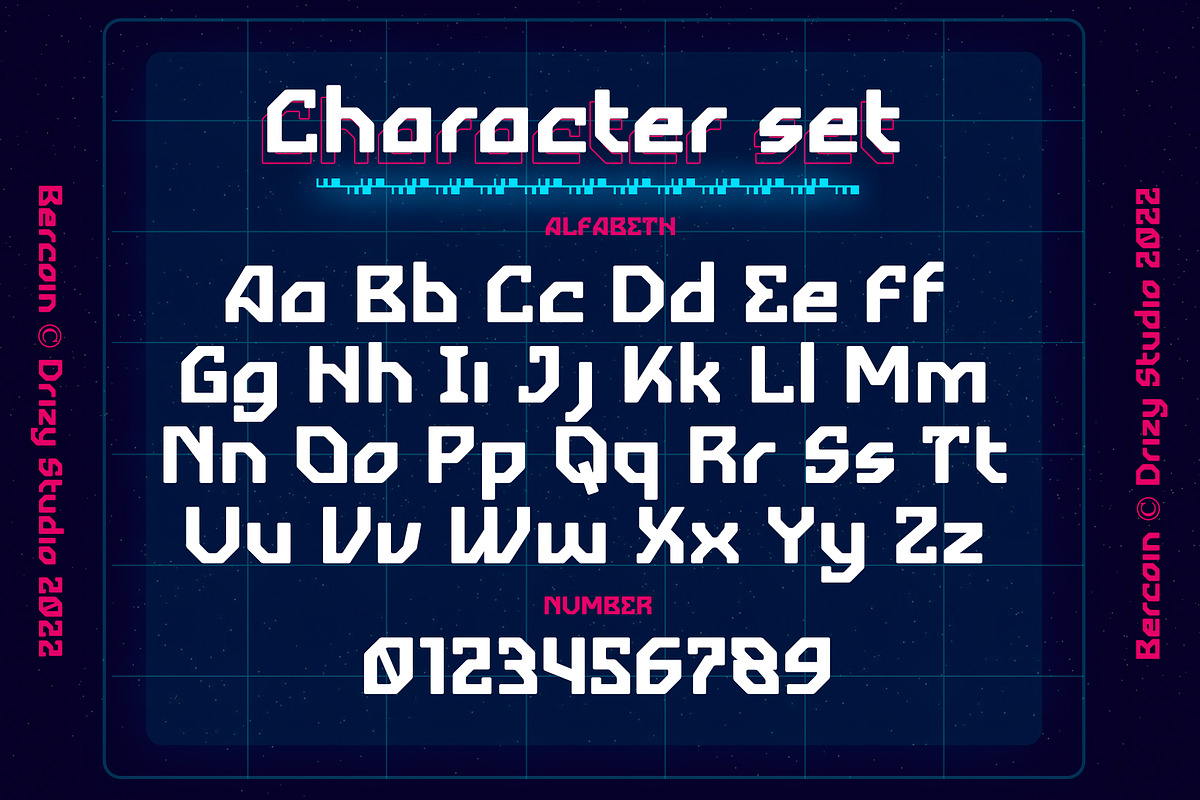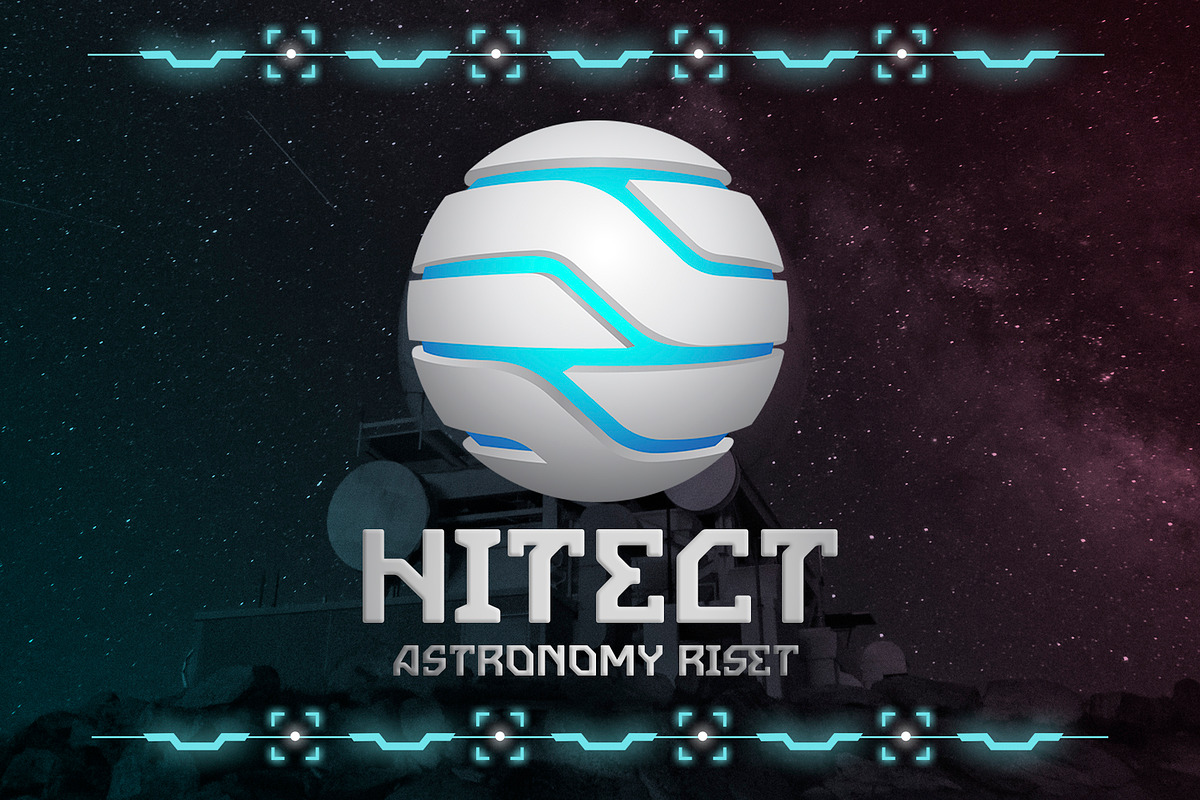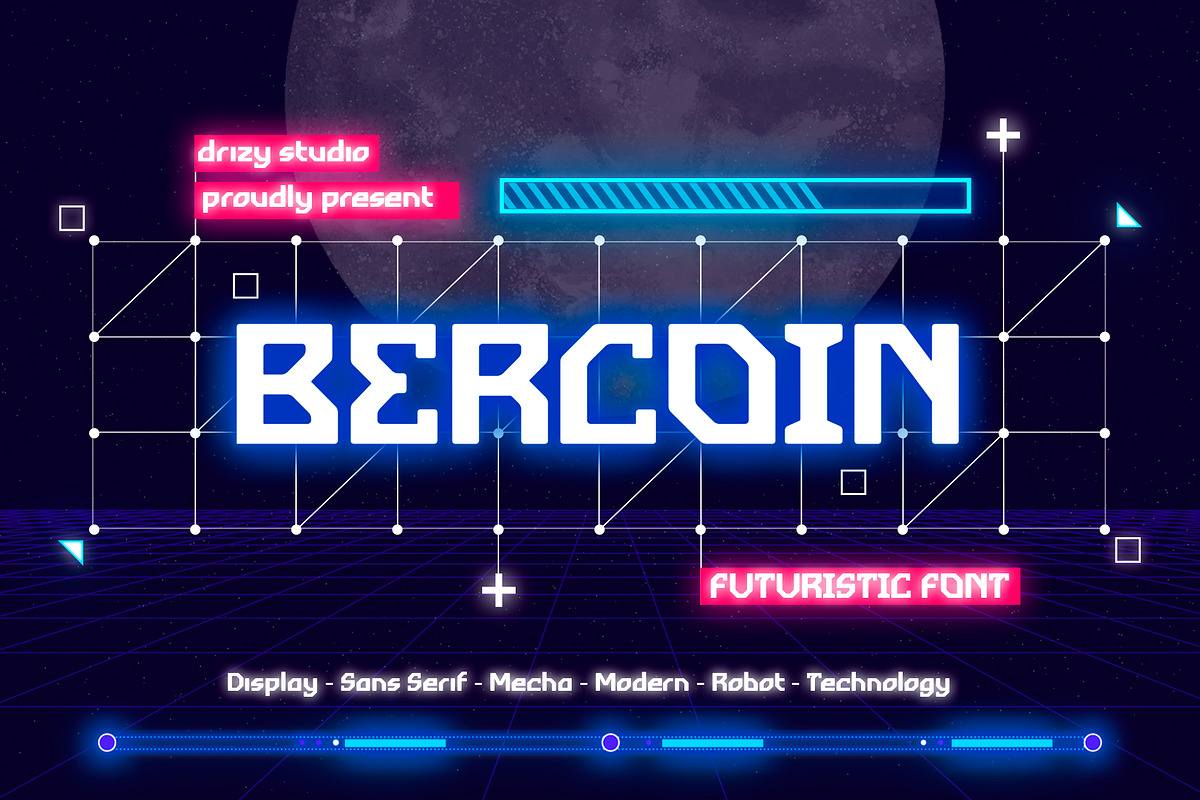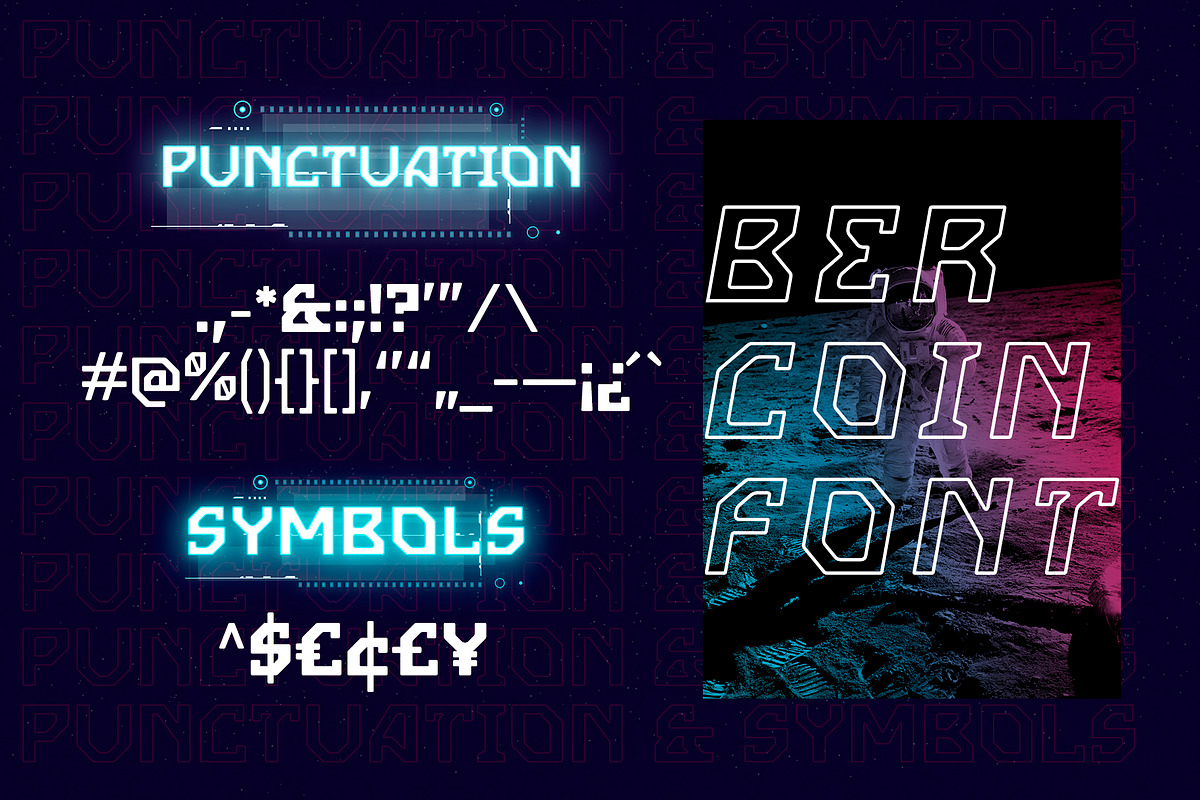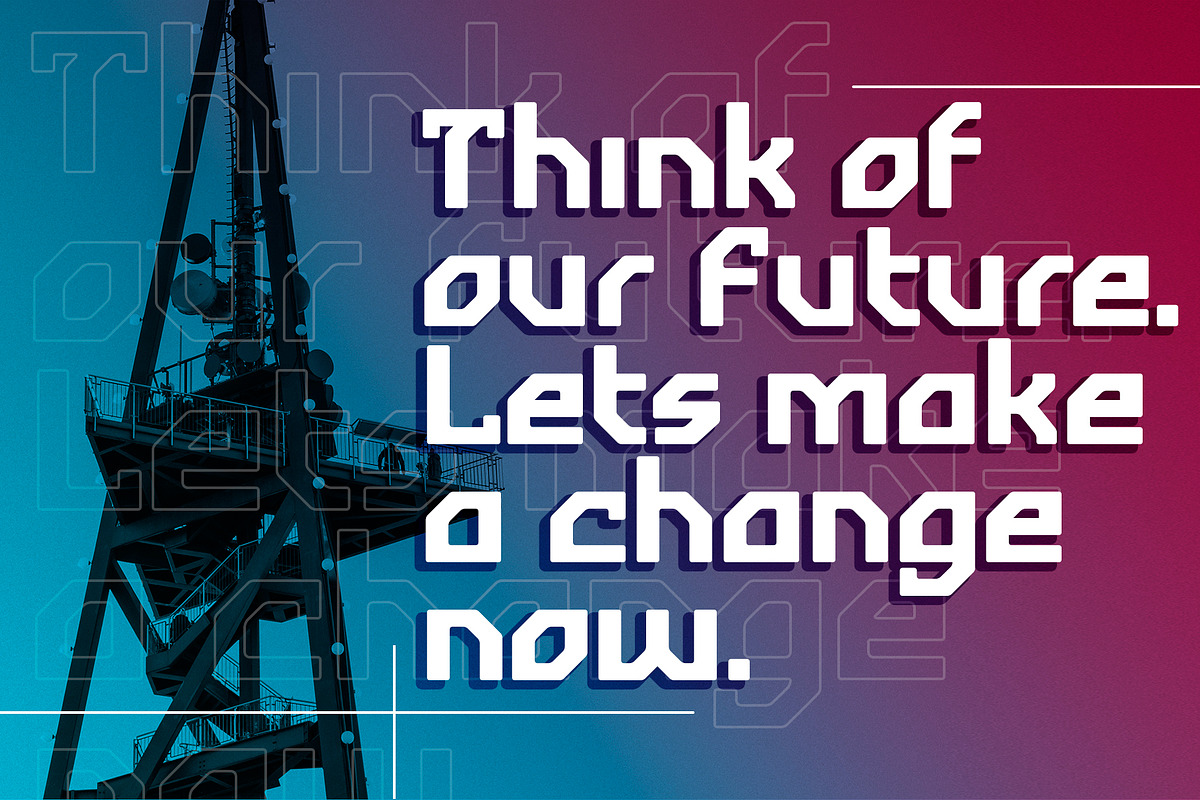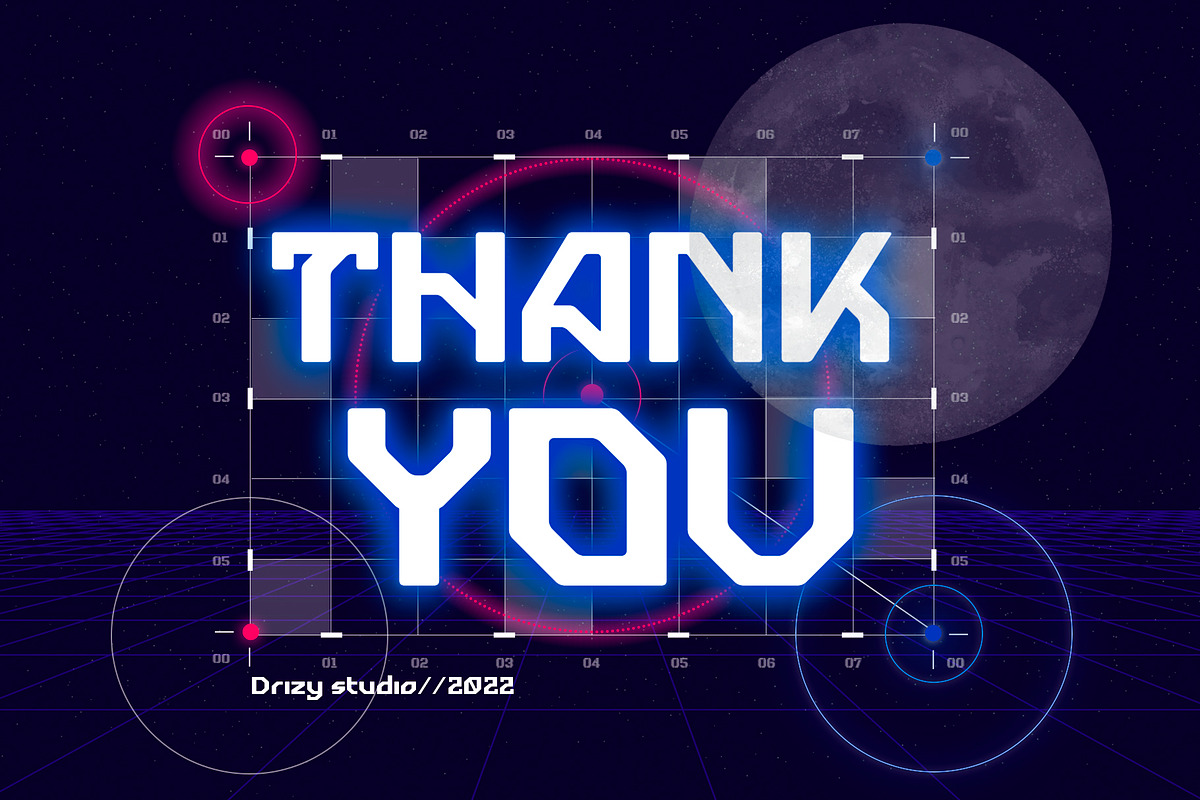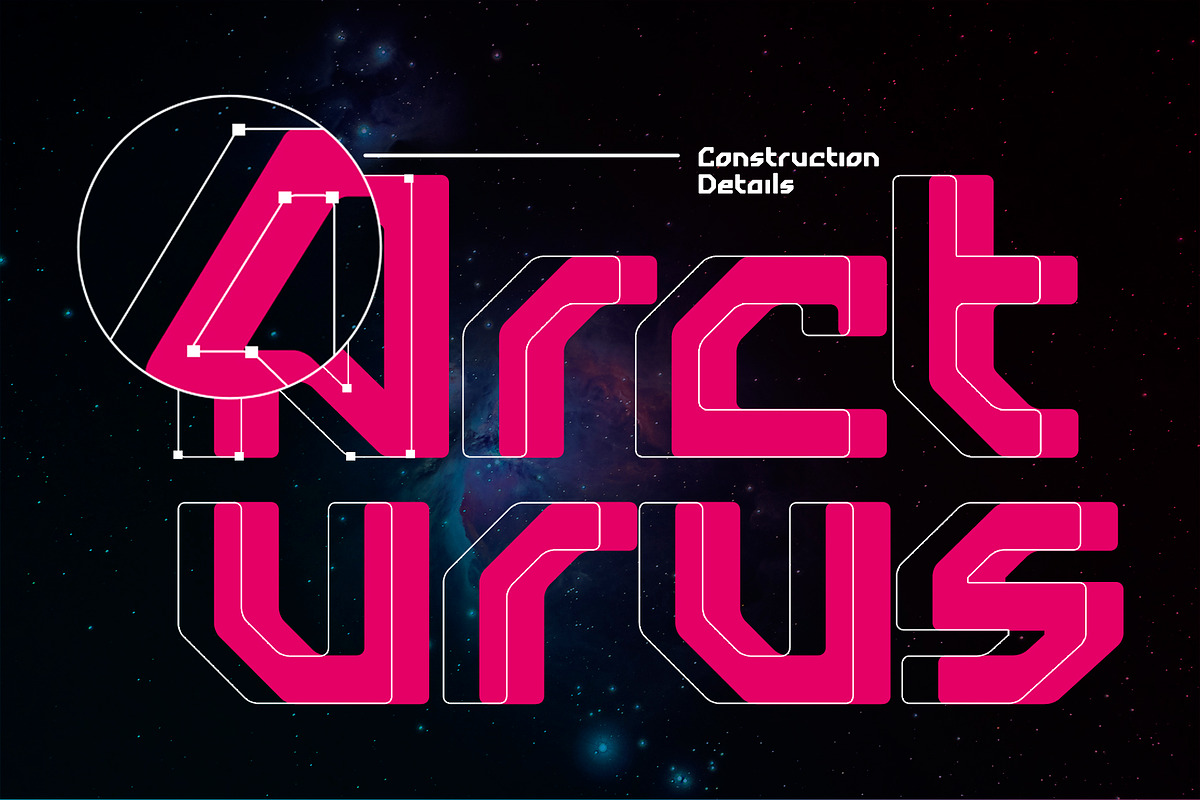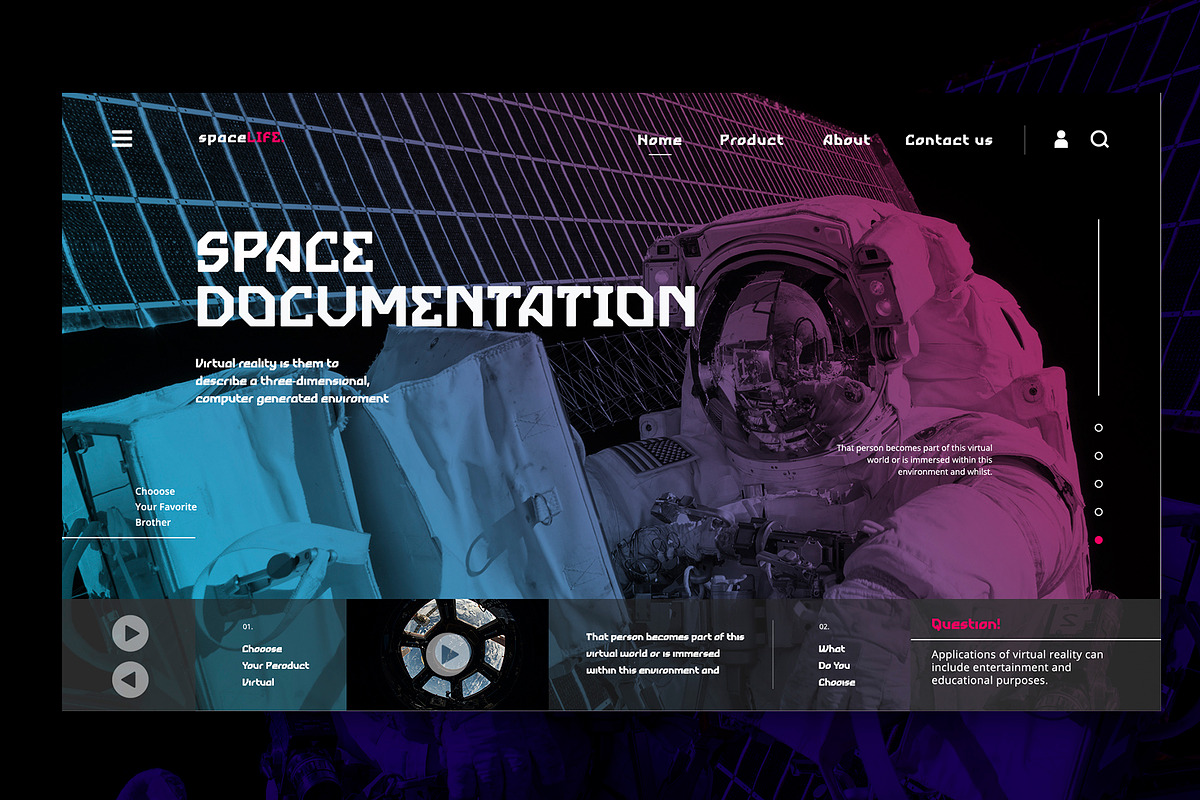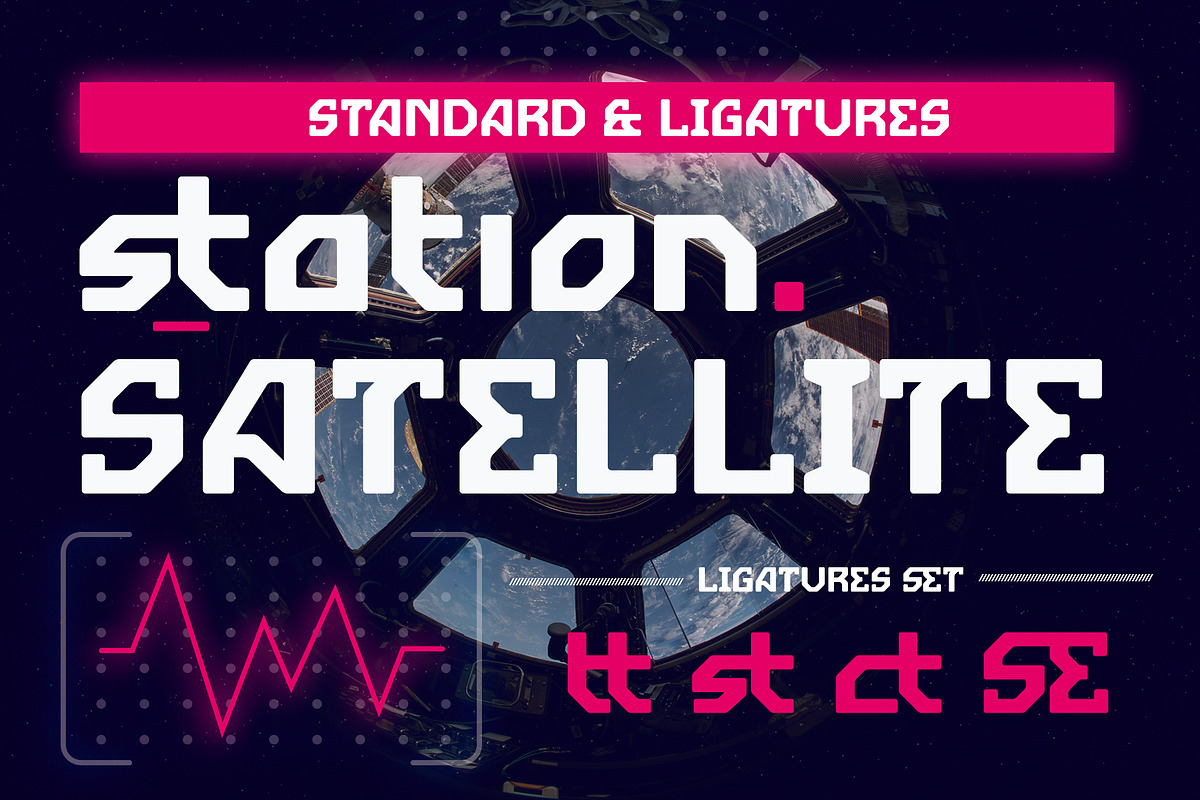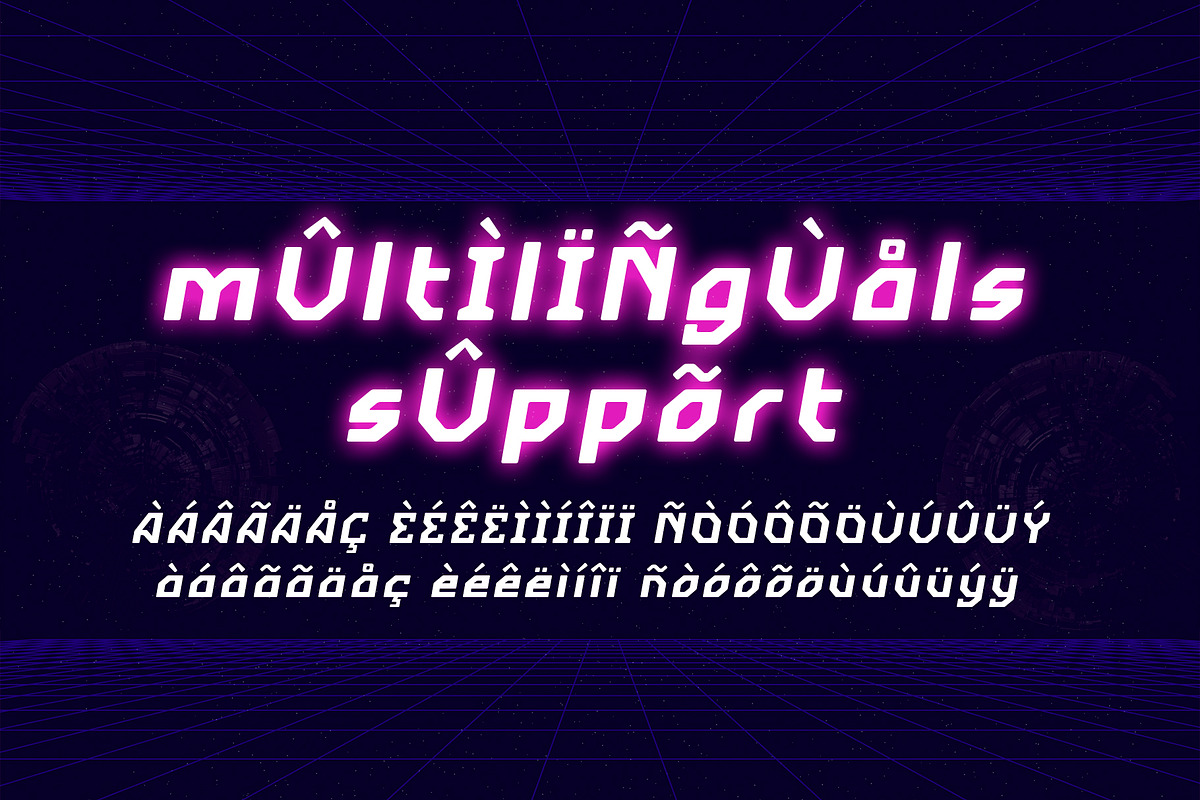
Bercoin
Bercoin is science fiction font from drizy studio. The geometric shape make sci-fi style feel strong in this font. Very suitable for inclusion in cyberpunk, futuristic, game & modern themes.